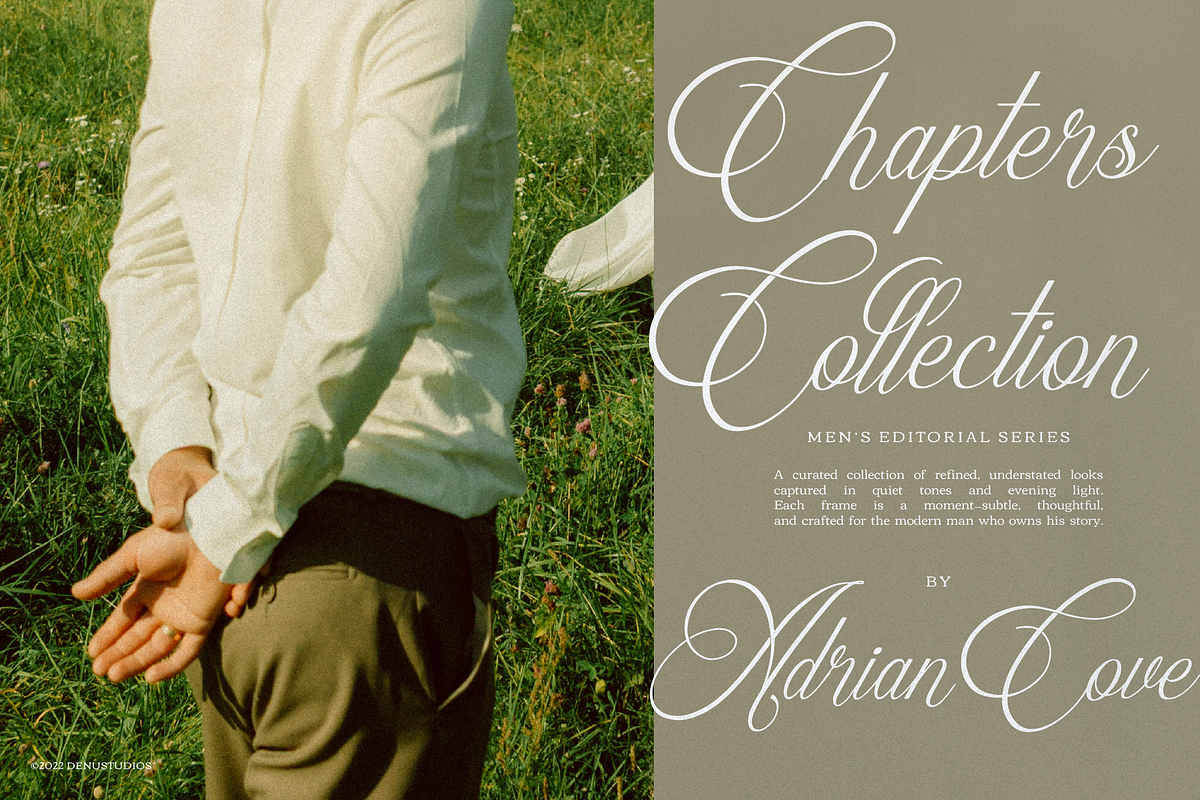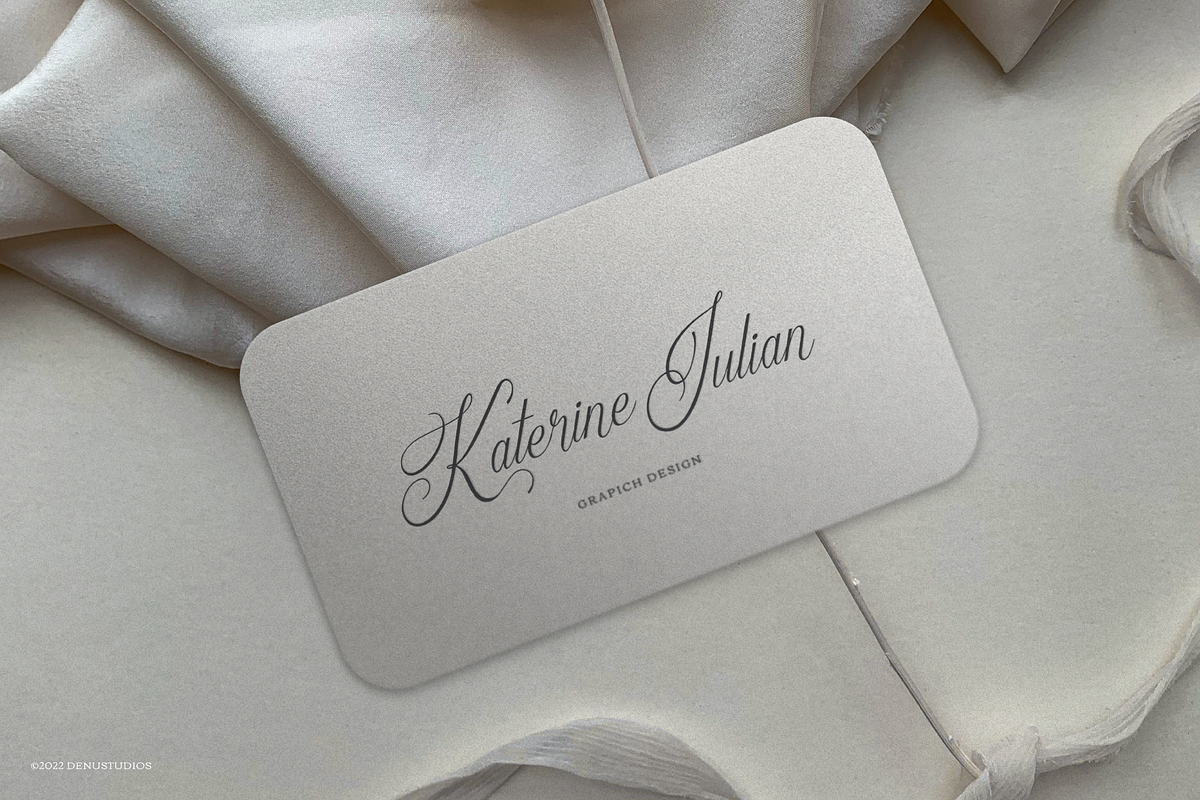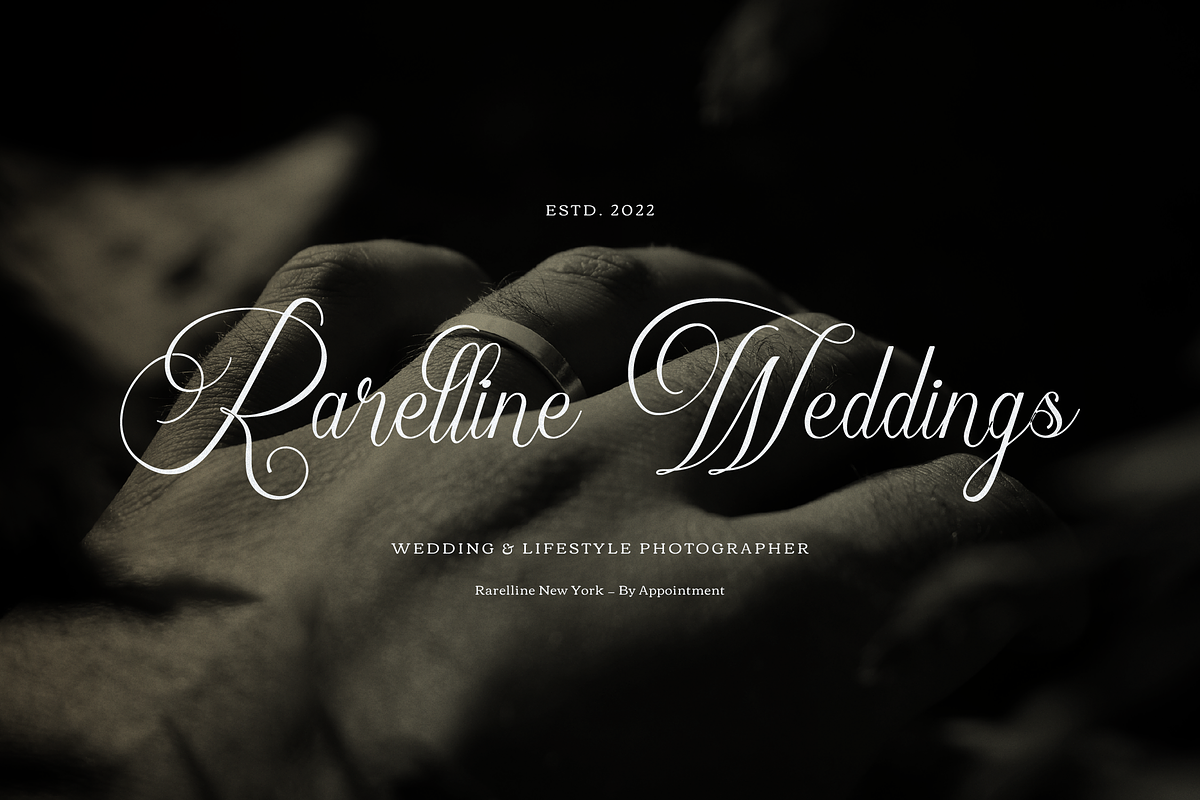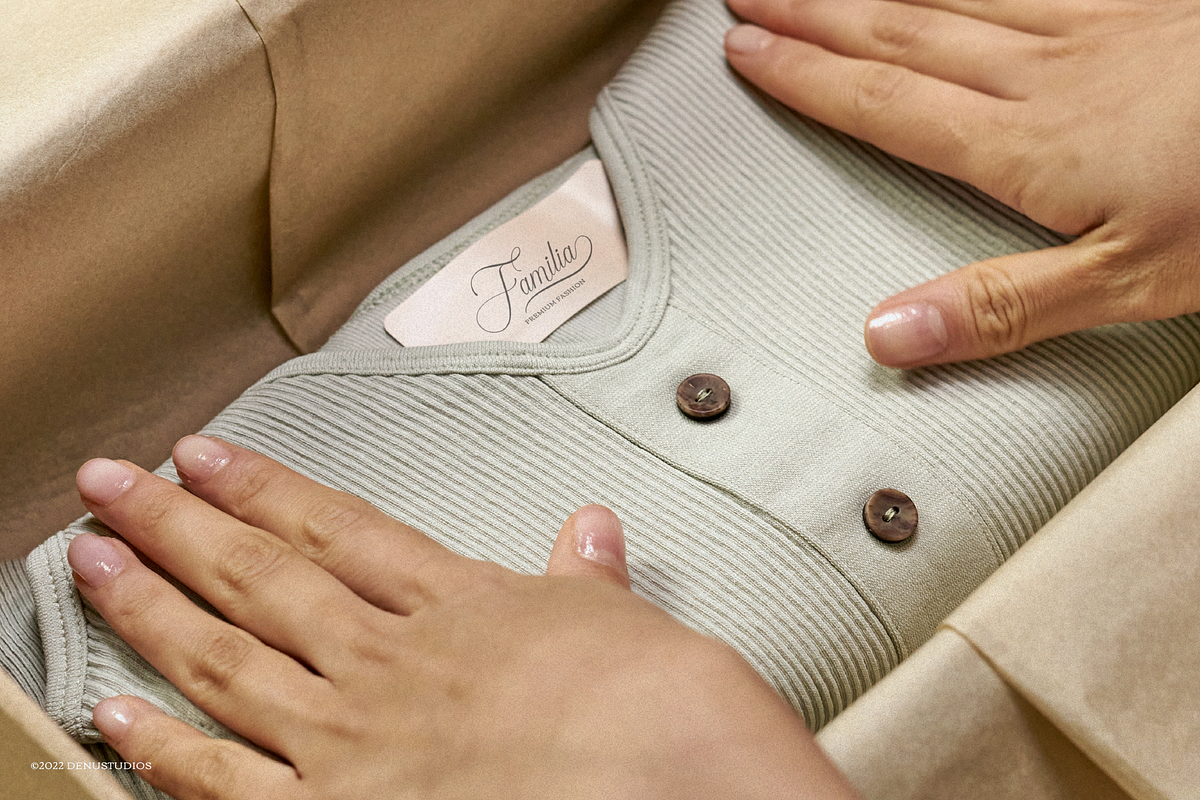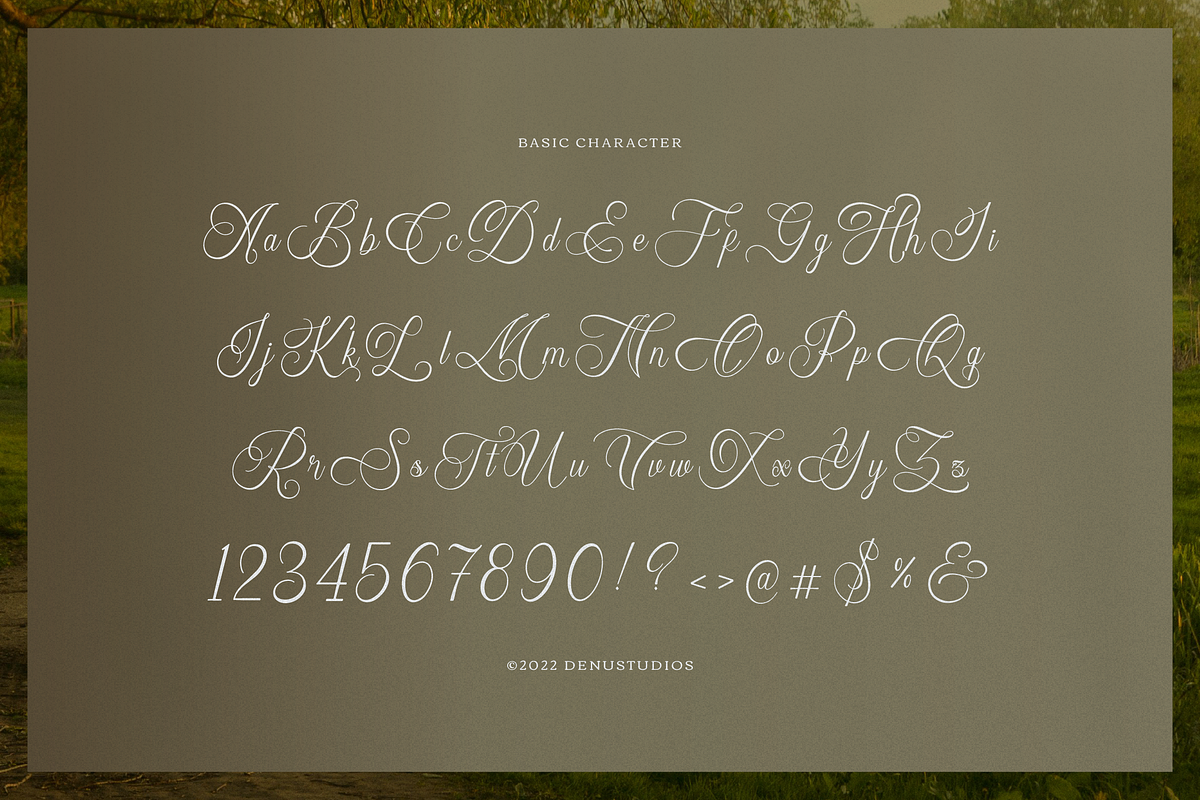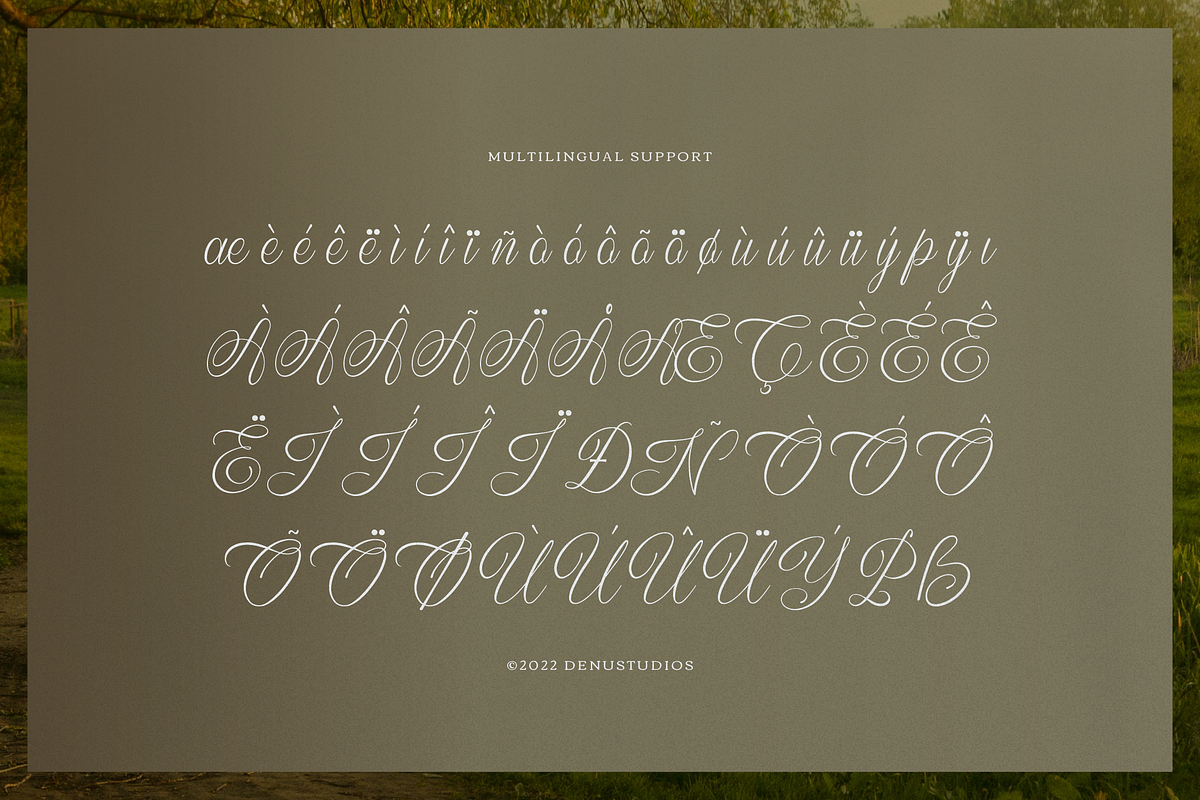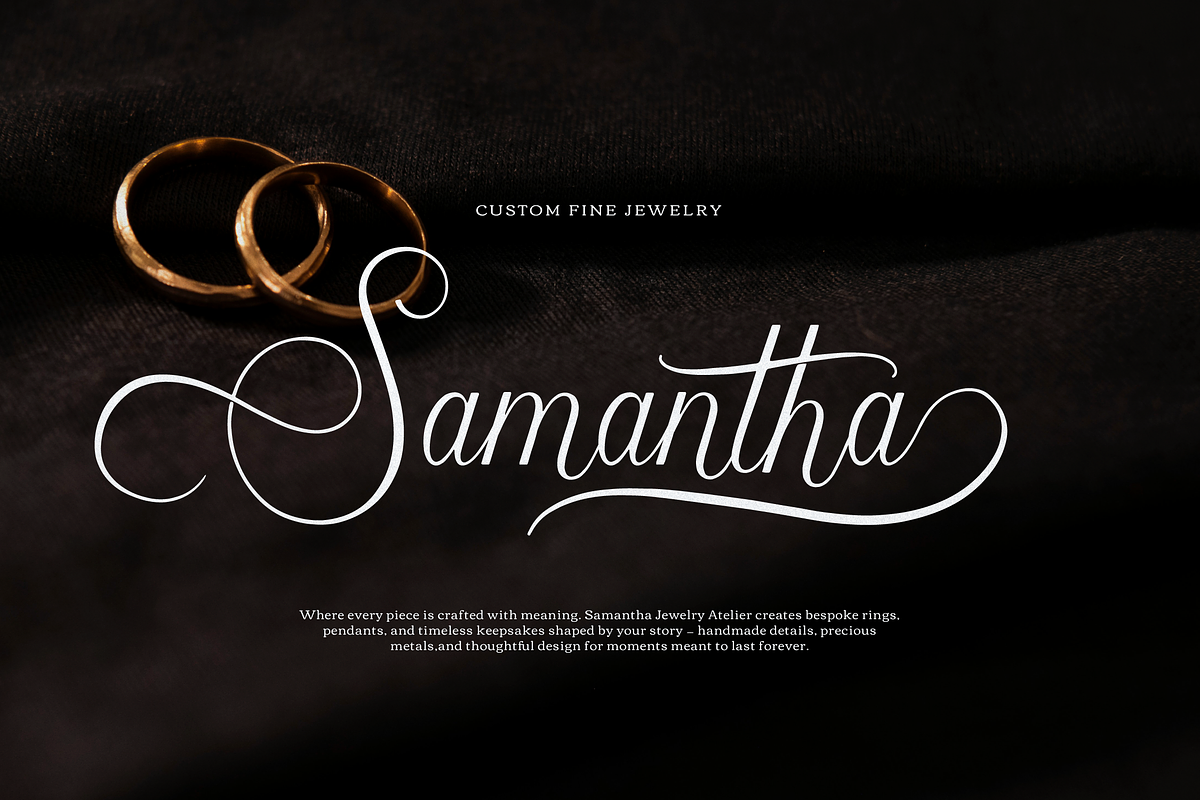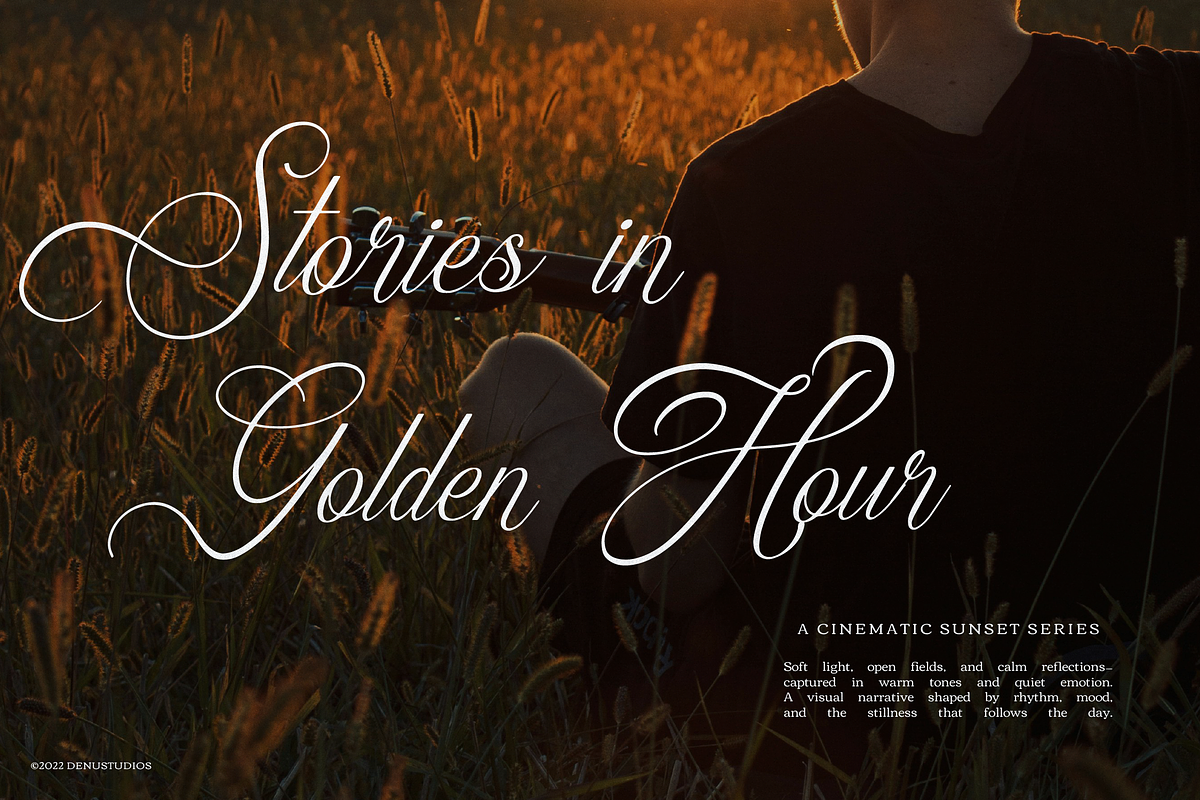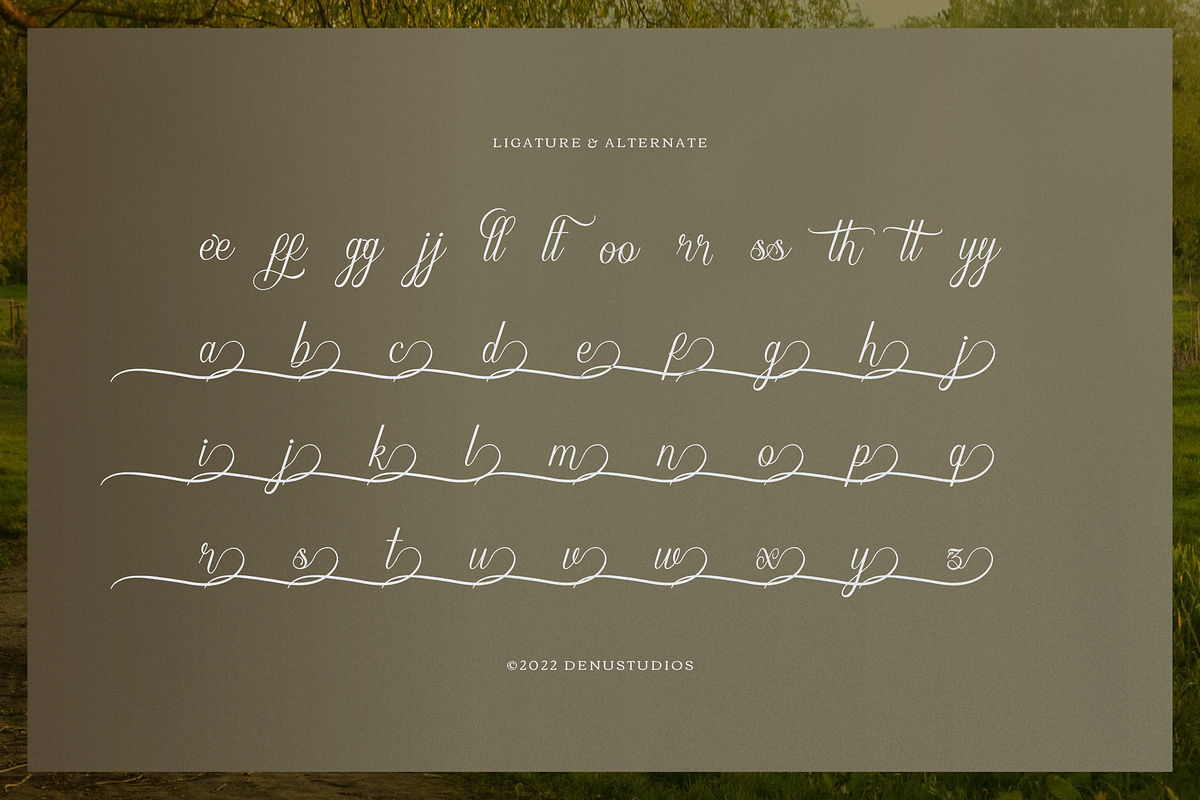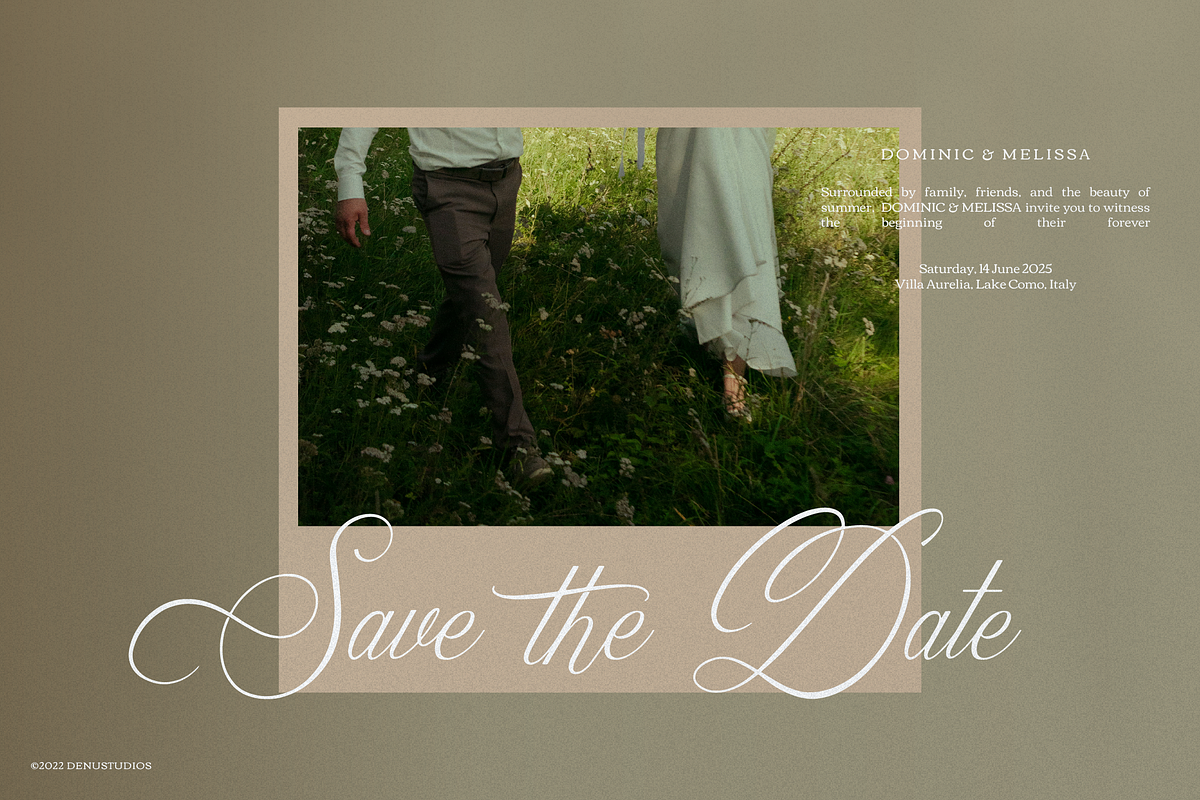
Narottewla | Beauty Callighraphy
Narottewla | Beauty Callighraphy Script, from Denustudios, suitable for any projects such as: logos, branding projects, homeware designs, product packaging, mugs, quotes, posters, shopping bags, t-shirts, book covers, name card, invitation cards, greeting cards, label, photography, watermark, special events, and all your other lovely projects that need a Script taste.